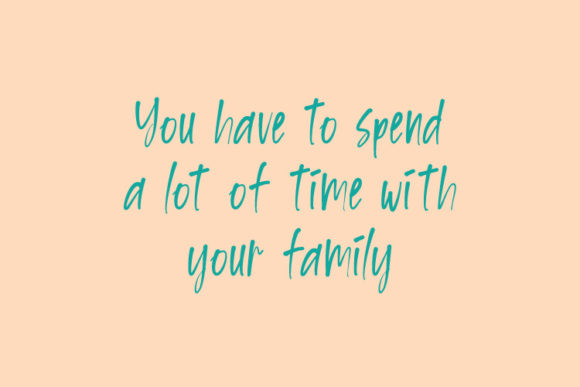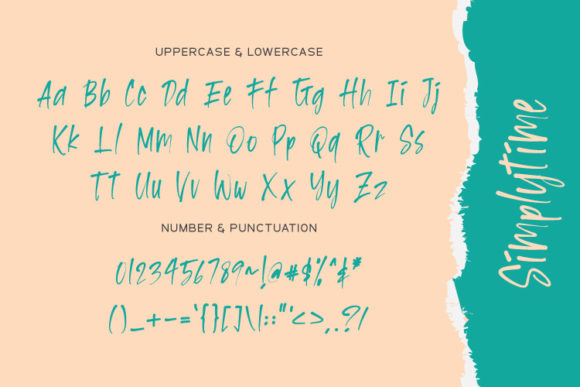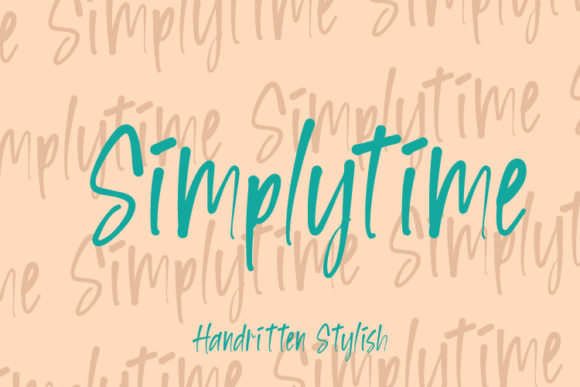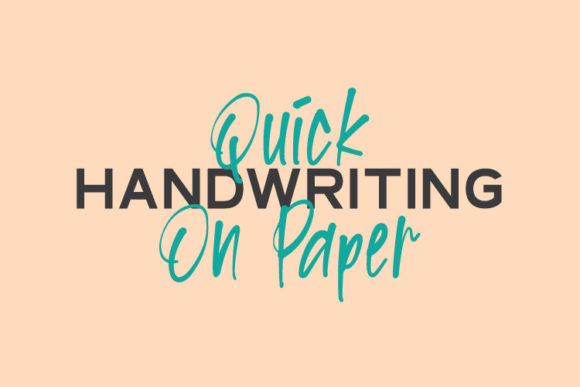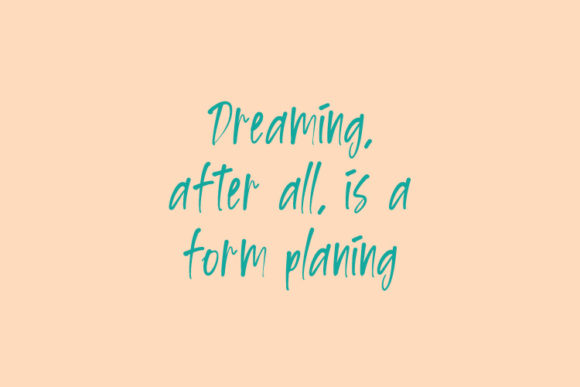
About Simplytime Font
Simplytime is a fresh, casual and relaxed handwritten font. It is perfect for poster designs, book covers, merchandise, fashion campaigns, newsletters, advertising, magazines, greeting cards, album covers and much more!